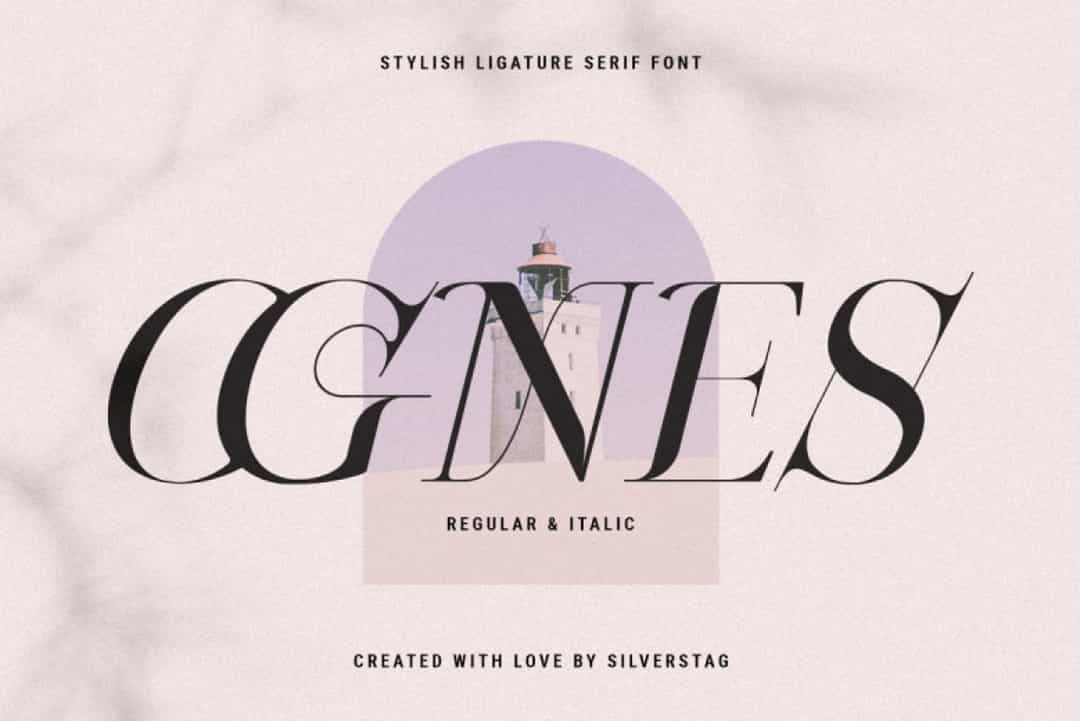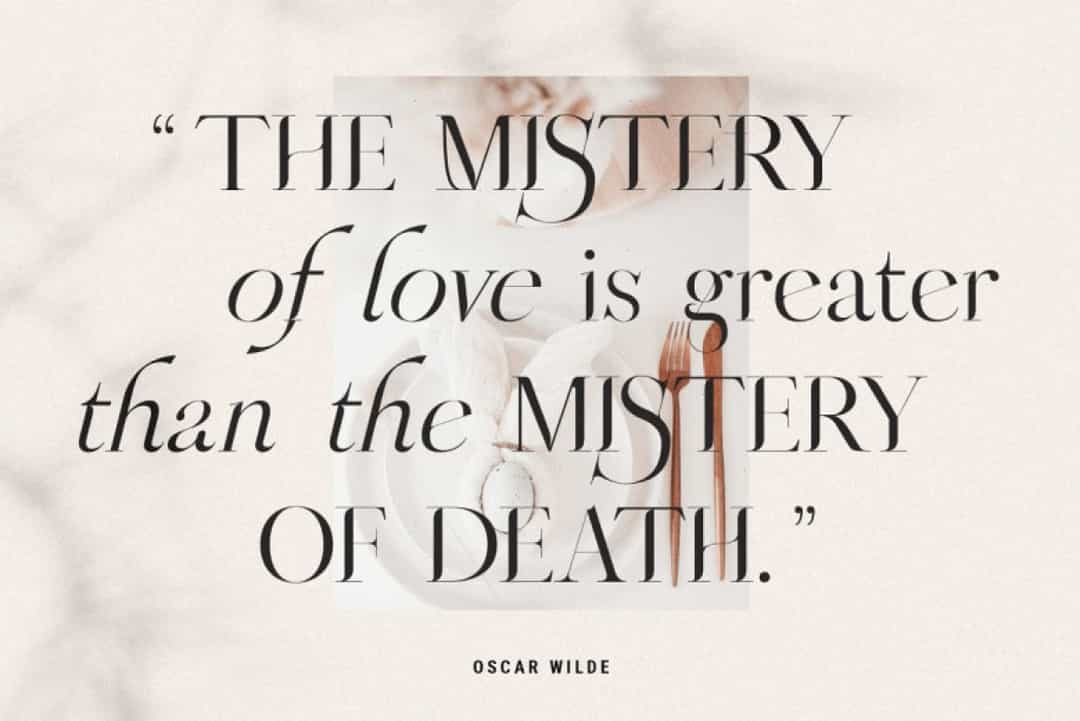
Discover Ognes Font, part of the Serif collection—a versatile and unique font perfect for adding a personal touch to your projects. Download it for free and enjoy crafting designs with style, from invitations to social media posts. This font is available exclusively for personal use, giving you the freedom to create without limits. Unlock your creativity with Ognes Font today!
Hello all! I am delighted to introduce the OGNES font, an elegant serif font with ligatures based on France’s stunning elegance and beauty! I am extremely proud to showcase my latest chic font with over 100 ligatures and alternates; all letters including ligatures were carefully handcrafted to be compatible with each other without exception, featuring soft edged edges which give each letter its own distinct appearance compared to similar serif fonts.